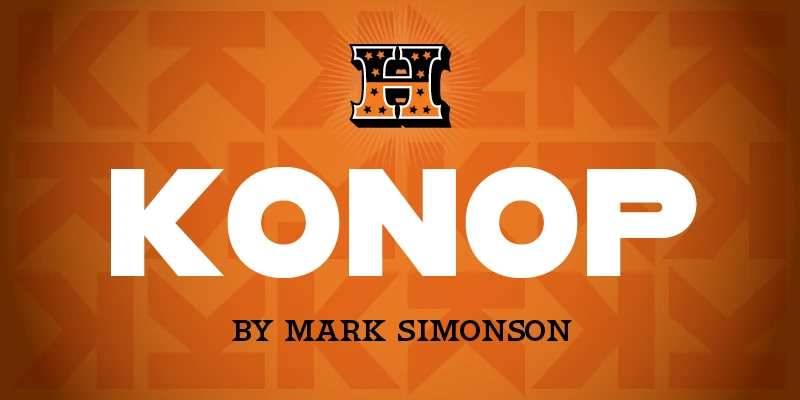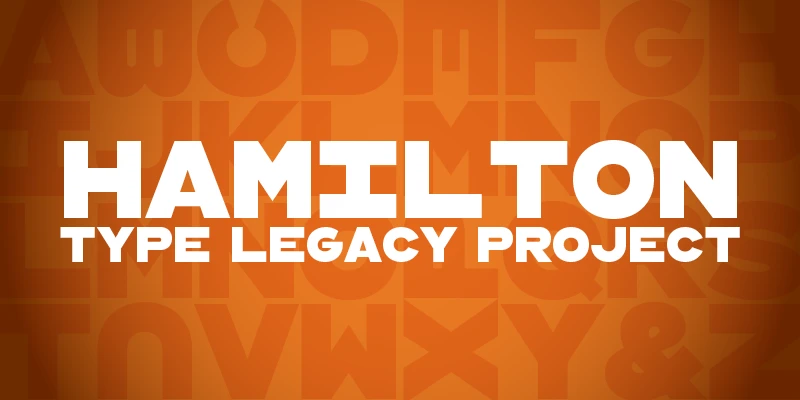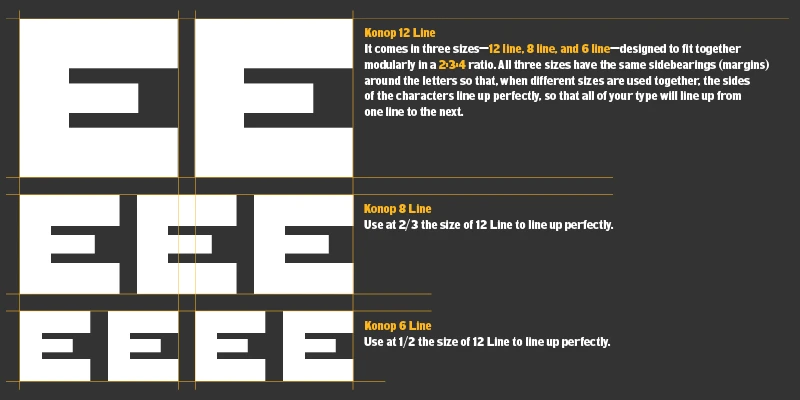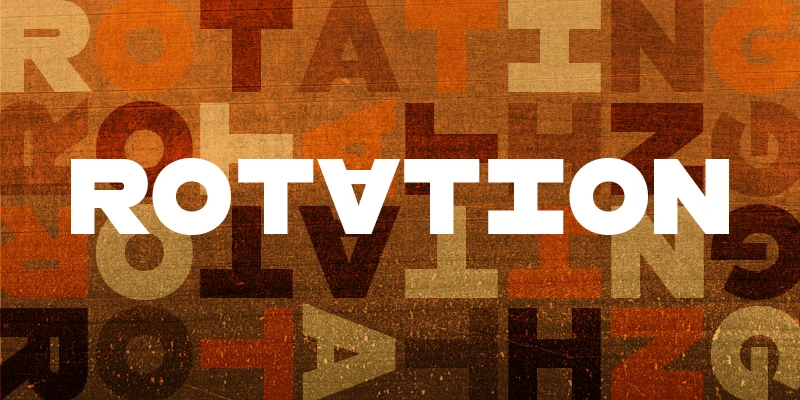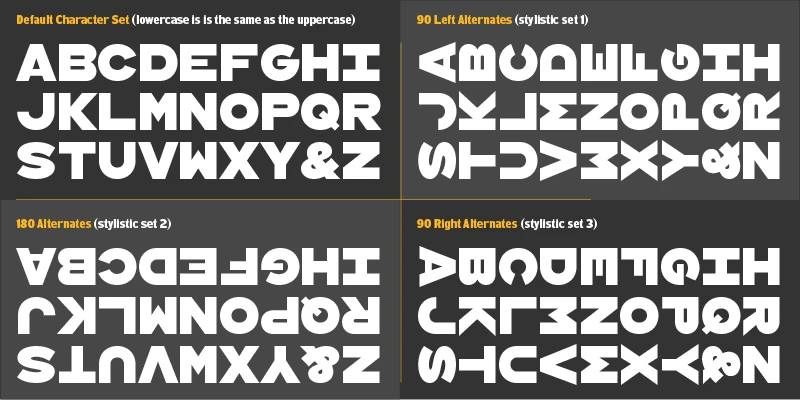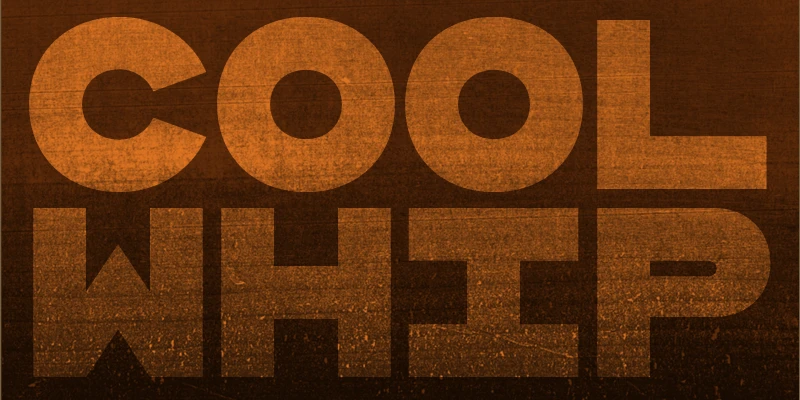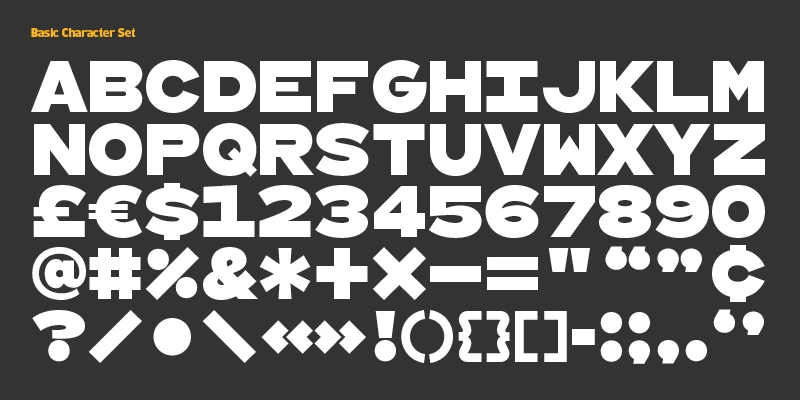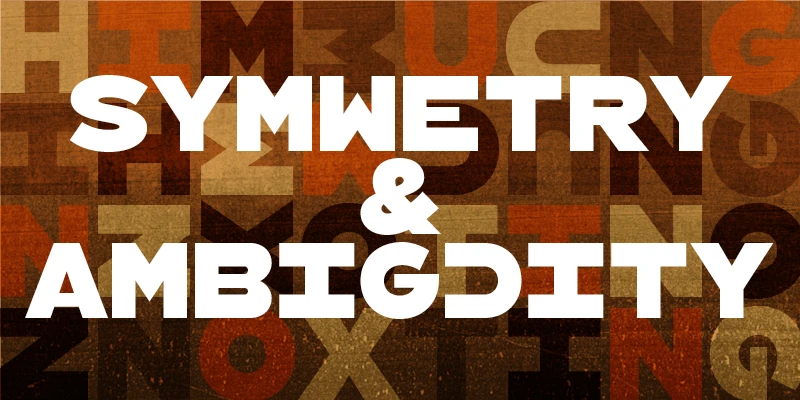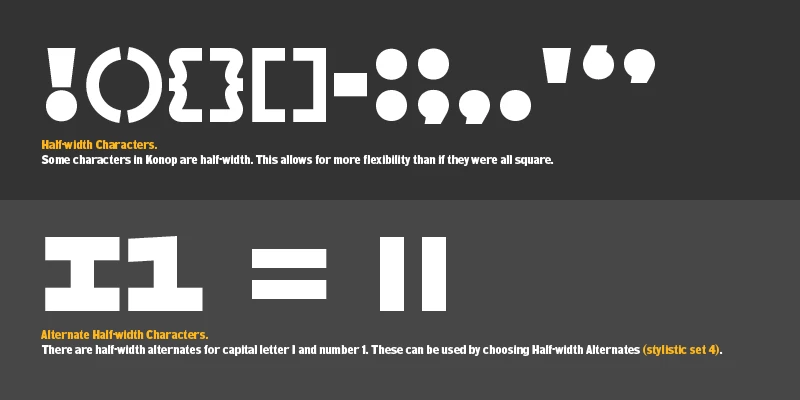
HWT Konop would have been a head-scratcher for old-world printers, but modern-day designers will find inspiration in its modular and rotational features. Mark Simonson named the family for Hamilton Manufacturing retiree and museum volunteer Don Konop. Not only are the letters monospaced, but they are square. They can be arranged tabularly, offering a lot of creative freedom. They adapt to their limitations in charming ways, and the numbers have a lot of personality.
Designed by Mark Simonson
Konop 6 Line
Konop 8 Line
Konop 12 Line